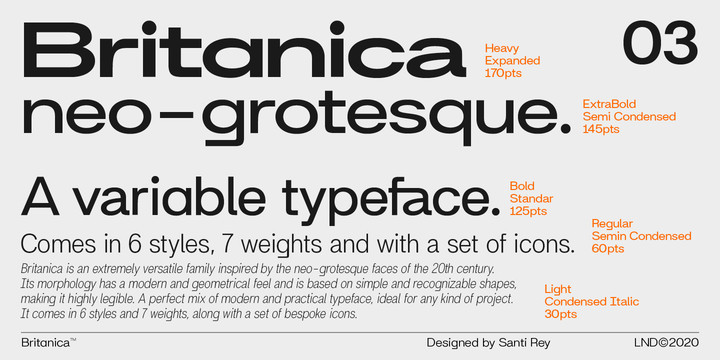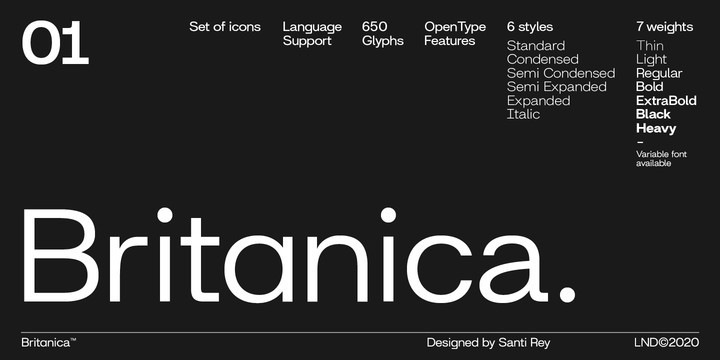
Britanica Font
Britanica is an extremely versatile family inspired by the neo-grotesque typefaces of the 20th century. Its morphology has a modern and geometrical feel and is based on simple and recognizable shapes, making it highly legible. A perfect mix of modern and practical, ideal for any kind of project.